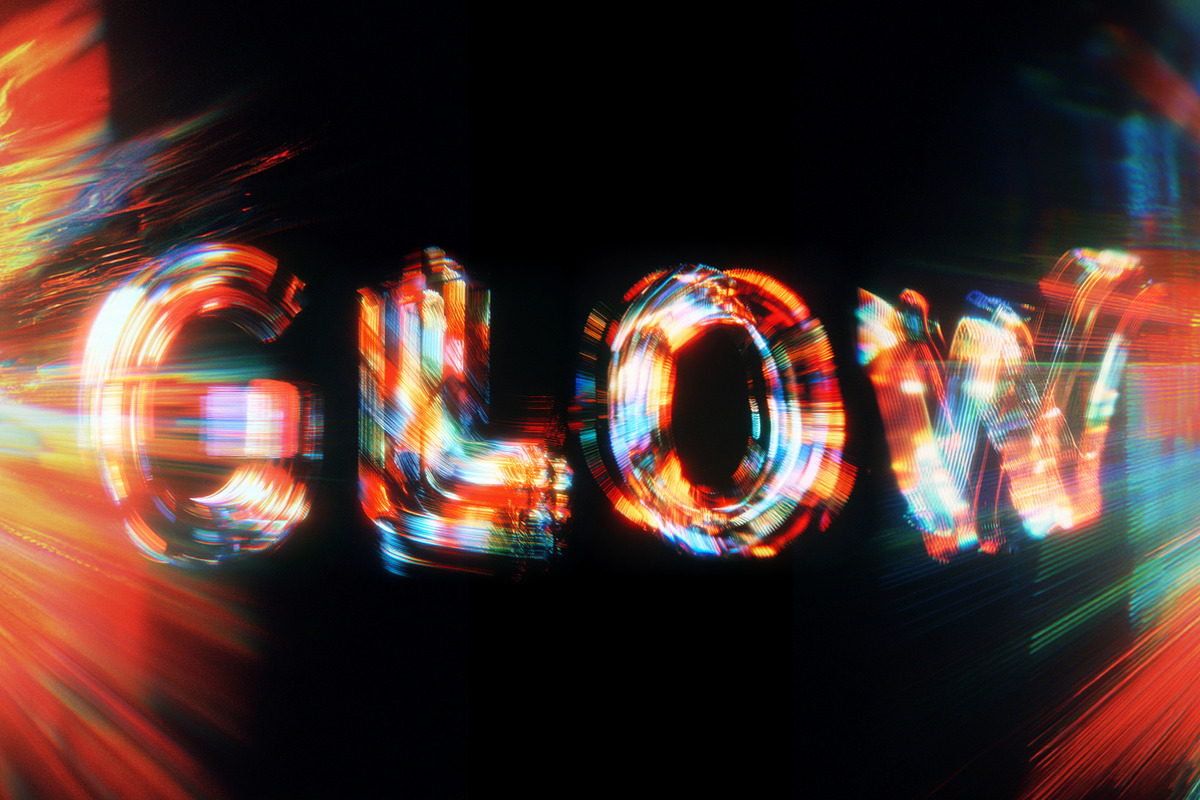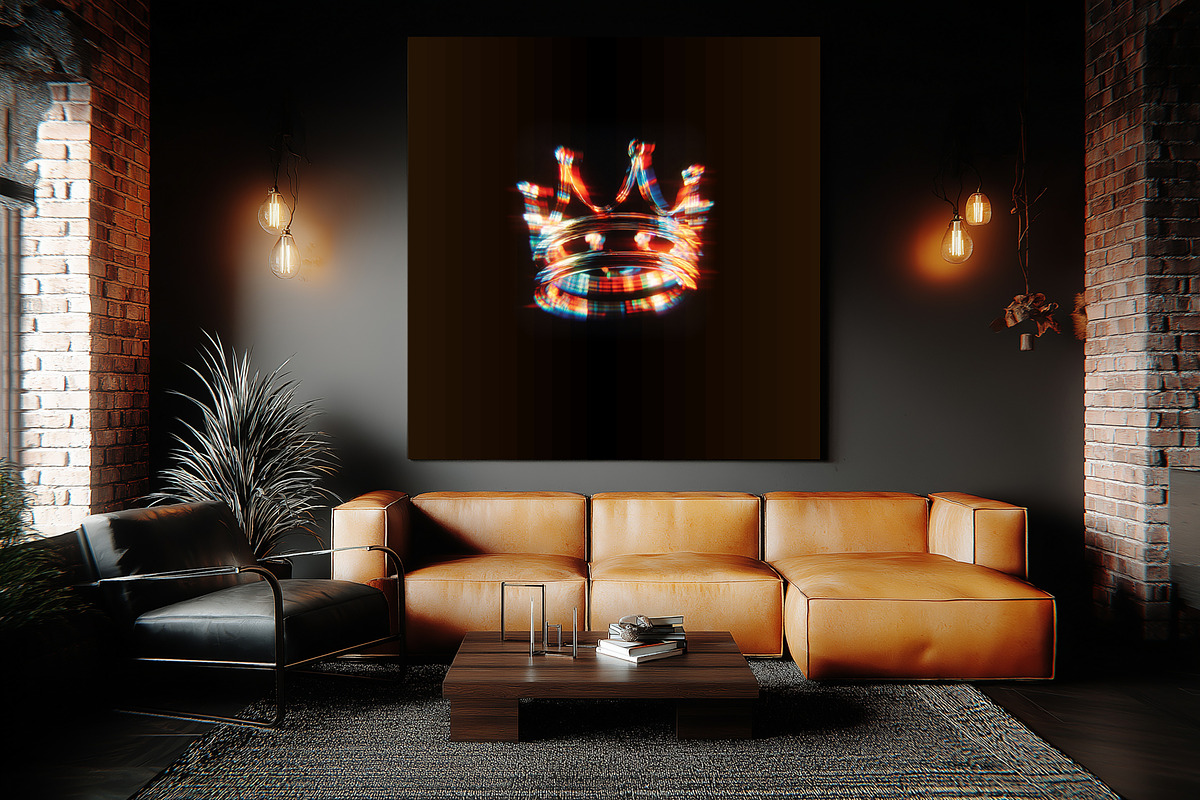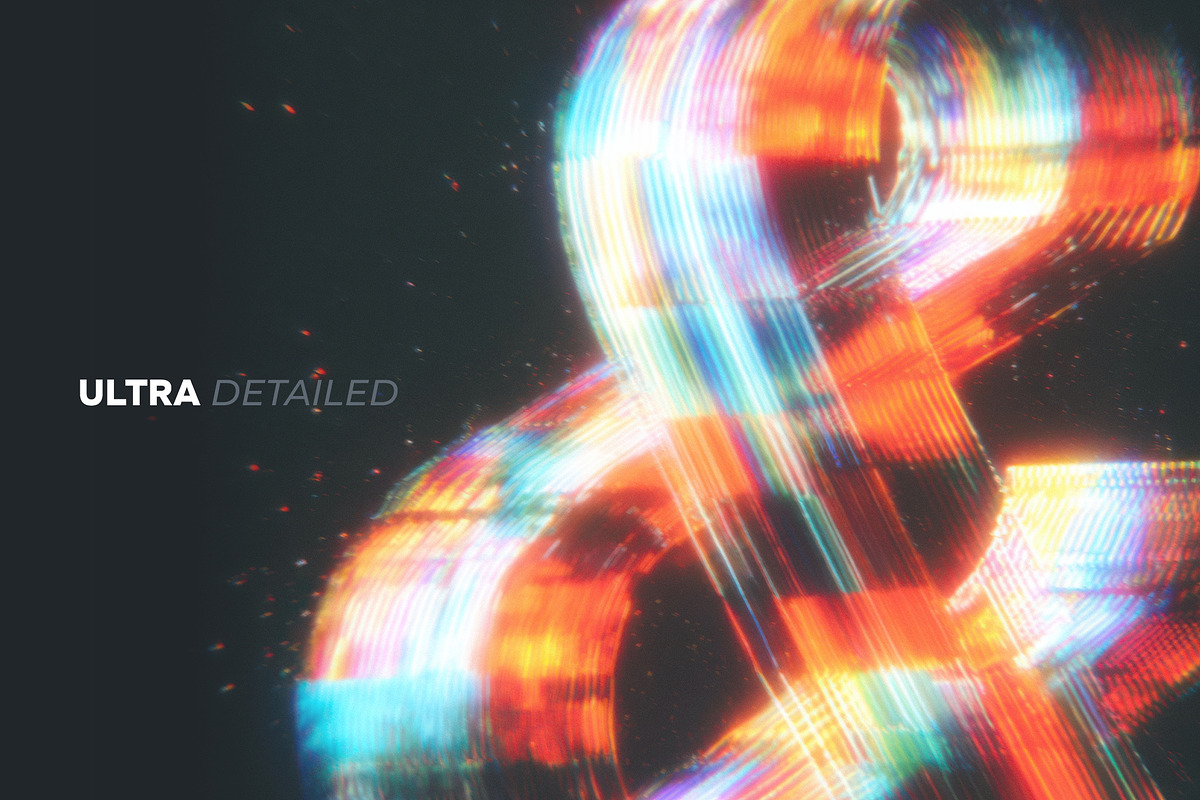
Optical Hologram Letters Overlays
🌟 Elevate your designs with our Optical Hologram Letters Overlays Collection. This premium set provides high-resolution JPG overlays featuring realistic, iridescent effects. Simply drag and drop them onto your projects for instant, stunning holographic visuals.
Multiple Variations per Character: Includes 2 to 5 unique variations of each letter, number, and symbol, giving you more creative options and flexibility to mix and match styles.
Complete Alphabet & Symbols: Includes all uppercase letters, numbers, and essential symbols, ensuring you have everything you need for any project.
💡 Designed for efficiency and impact, these overlays are perfect for social media graphics, promotional materials, and digital art. They add a cutting-edge, futuristic aesthetic that captivates audiences and enhances brand perception, saving you hours of complex design work.